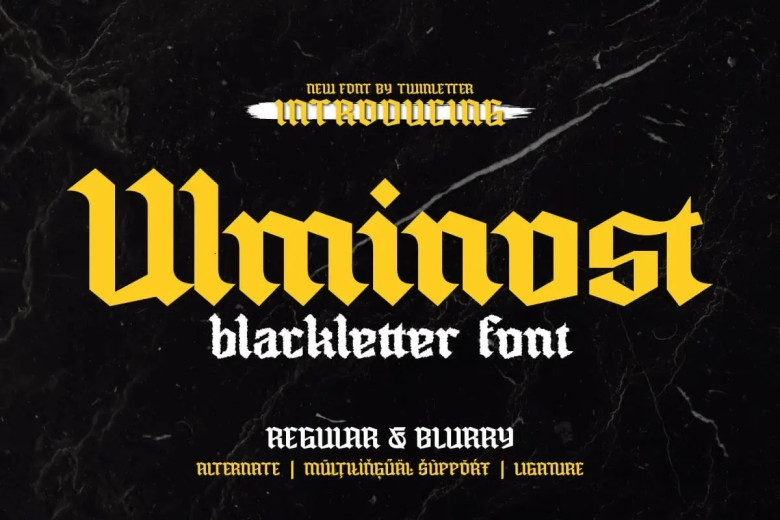
Ulminost Font
Ulminost Font is an outstanding Blackletter font with its distinct powerful style that adds sophistication and power to all of your design endeavors. Boasting an extensive history and special features that create an outstanding visual impact across every display.
Offering blurry and regular versions for incredible creativity. Ulminost helps create unique packaging designs, branding pieces and art designs with unparalleled style!
Ulminost Blackletter Font